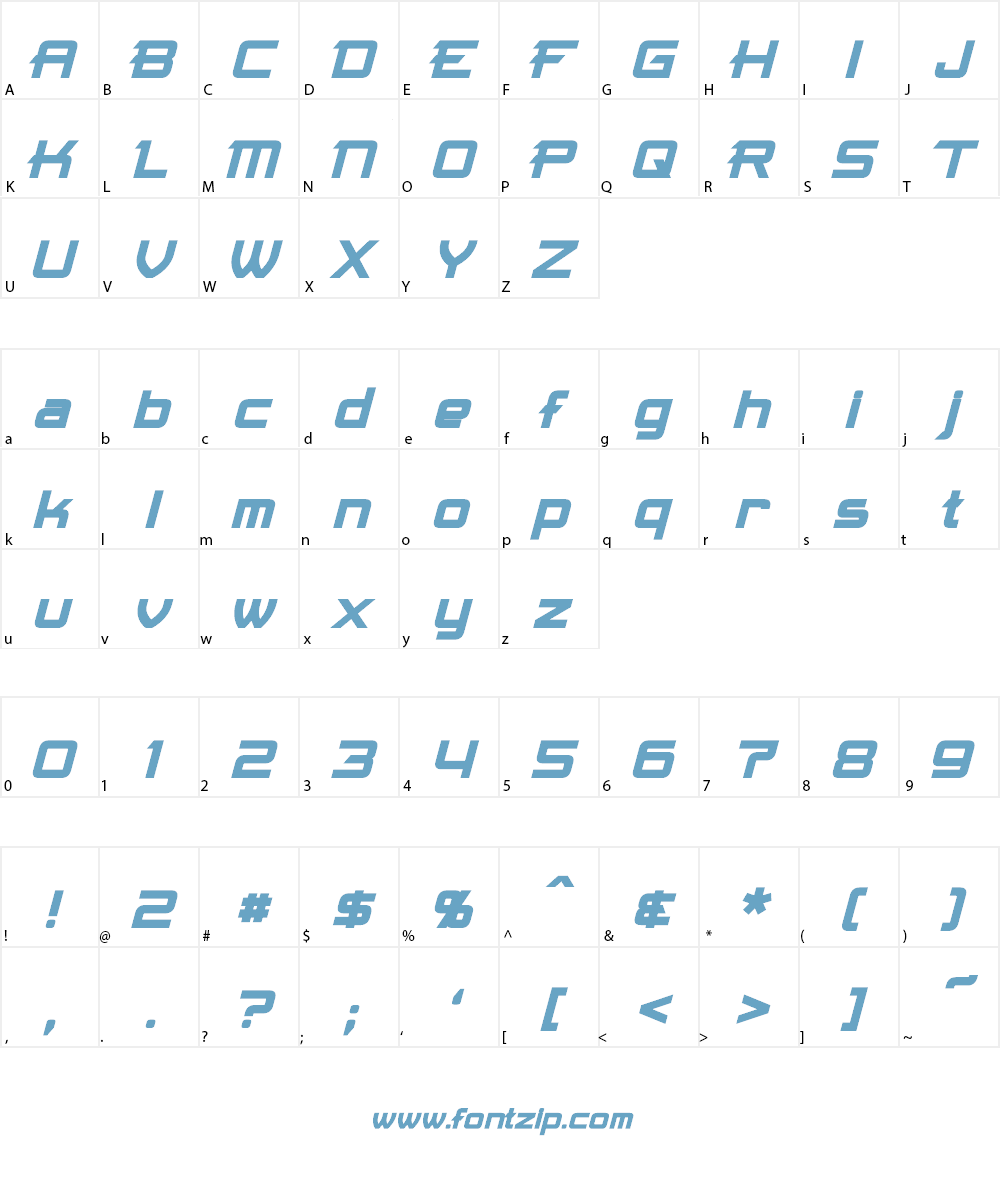
Maximize is based on the title logo of Hasbro’s Transformers: Beast Machines franchise. This is a simple, angular header typeface with minor angled flourishes on many of the letters. Includes full alphabet, extended punctuation, Euro. Includes bold, italic, and bold-italic versions. (Version 1.10)